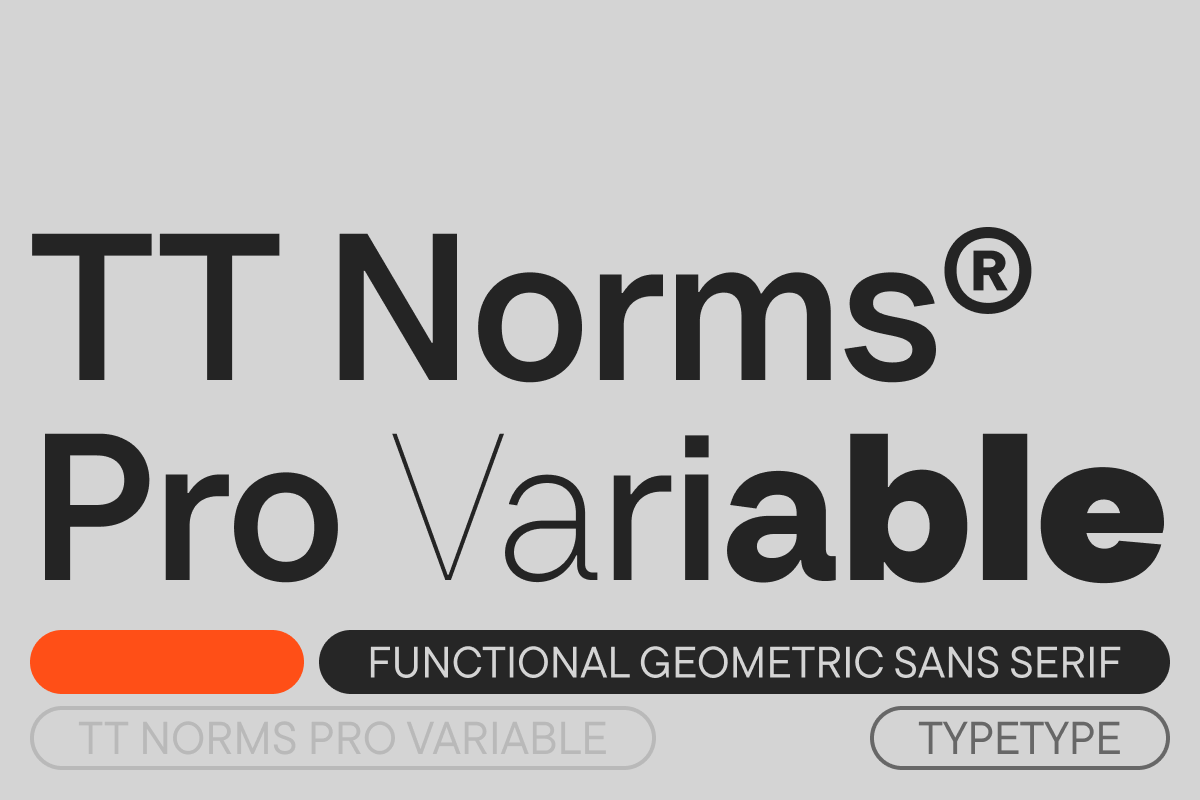
TT Norms Pro VF Medium
TT Norms® Pro is a functional geometric sans serif for aesthetic solutions, a bestseller from TypeType studio. This is a stylish, elegant, and versatile typeface that will serve as a solid foundation for your collection.